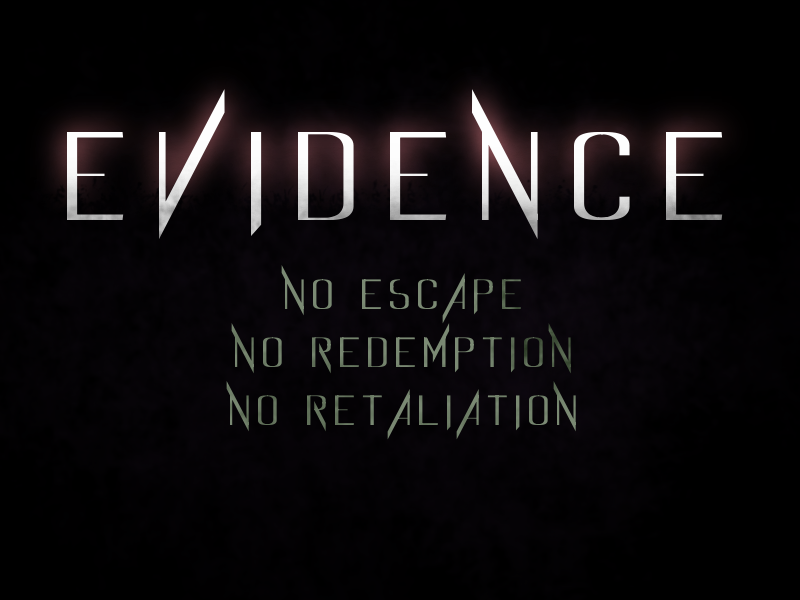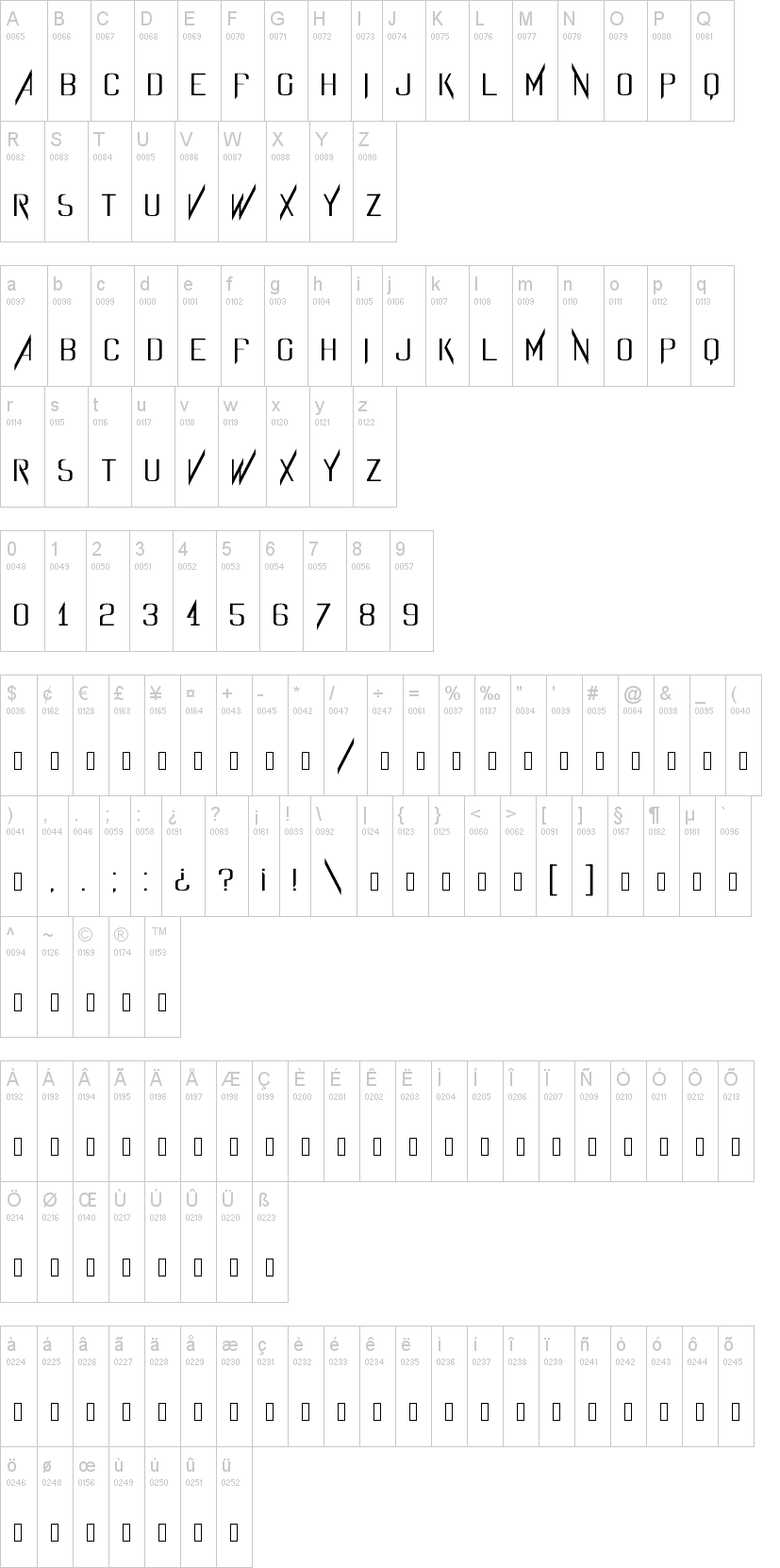
Note of the author"In the barren world, deep within the earth, a shadow holds the greatest treasure, guarded in mysteries and riddles only the gods know the answer to."
Futuristic horror font of the dark dystopian world.